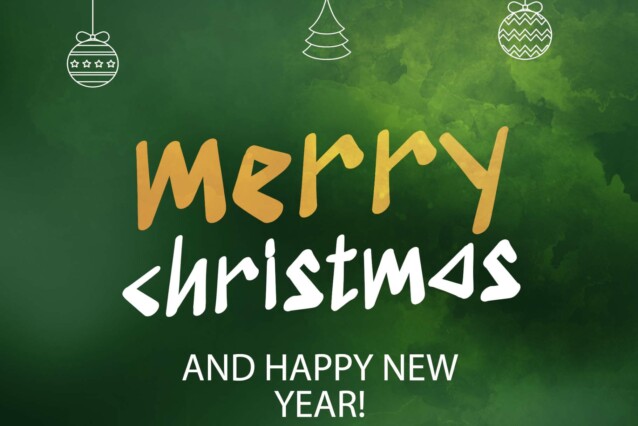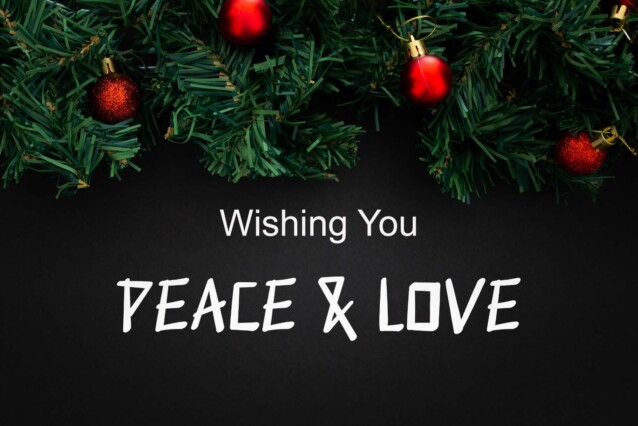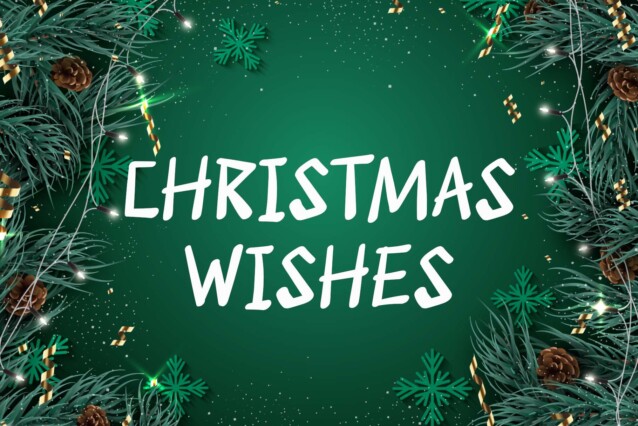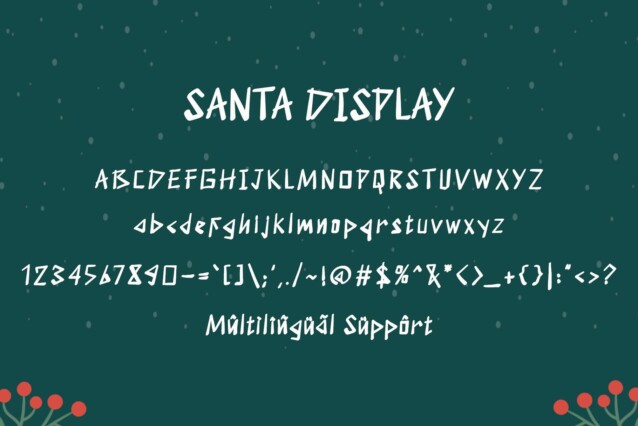
Santa Display Font
Santa Display Font is a unique and cute display font. This font is equipped with uppercase, lowercase, numerals, punctuation, and multilingual support. Very suitable for Christmas, weddings, birthdays, engagements, posters, branding, stickers, logos, tattoos, book titles, film titles, and others.